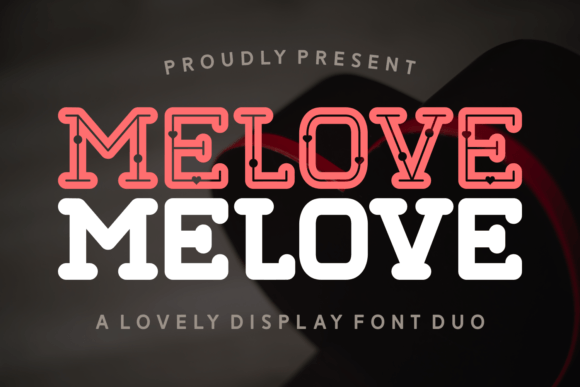
**Unleash Your Inner Creator with Melove Font, the Perfect Choice for Cricut Pen Lovers!**
Calling all Cricut Pen enthusiasts! Meet Melove, the remarkable font collection that will ignite your imagination and enhance your creations.
Melove is not just a font; it's an artistic masterpiece, meticulously crafted to deliver captivating results on your Cricut Pen projects. Each letter is meticulously designed with sharp lines, clean edges, and bold strokes, making Melove an extraordinary choice for headlines, titles, and eye-catching artistic statements.
Let your creativity soar with Melove's minimalistic and refined aesthetic, perfect for adding a touch of sophisticated charm to your digital designs.
But what truly sets Melove apart is its versatility. Whether you're creating personalized gifts, crafting whimsical home décor, or designing stunning social media graphics, Melove seamlessly adapts to meet your every need.